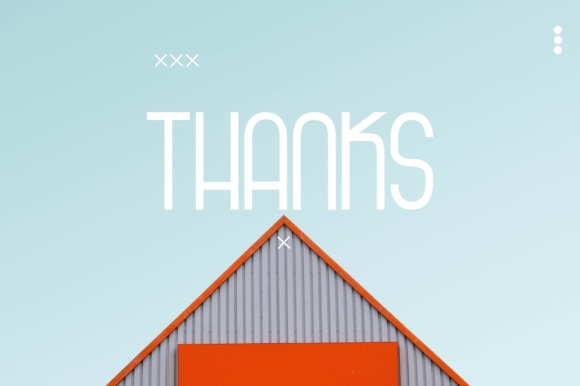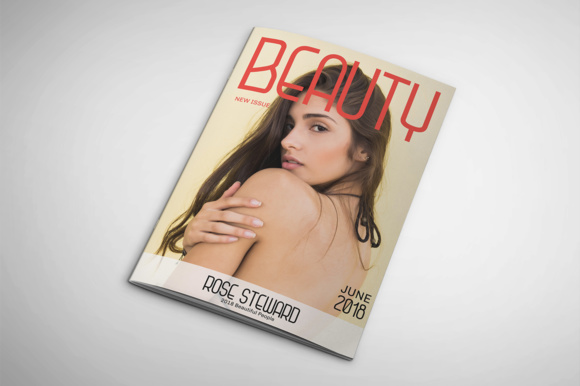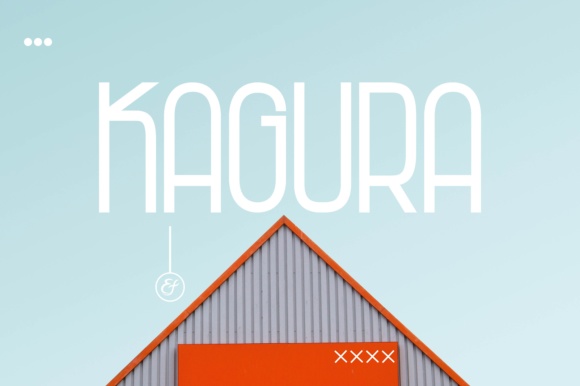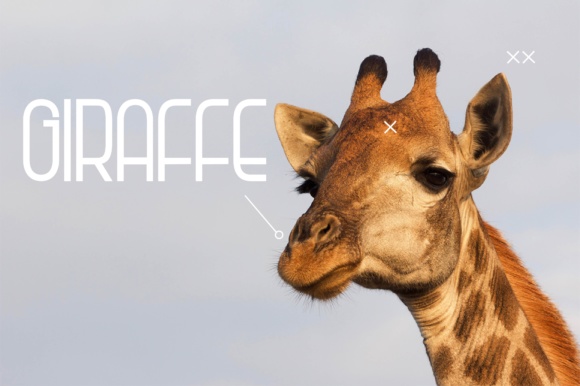
Kagura Typeface
A minimal, classic sans serif typeface. It has a little bit of personality and can be used for both headers and body copy. Introducing Kagura Font. It is designed and shared by Ef Studio. The Kagura is a sans serif with high letters and a sexy look. It can be used for every design that needs a cheerful, sexy yet elegant look.